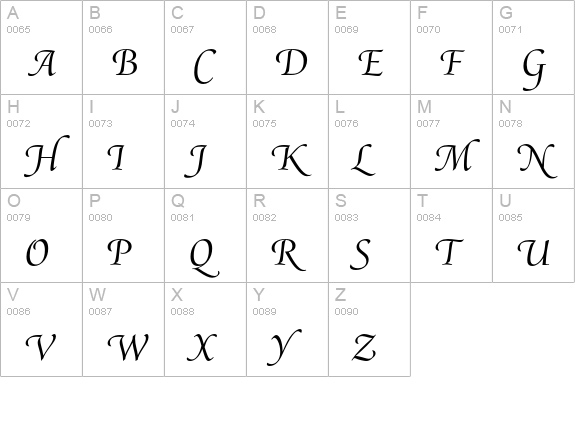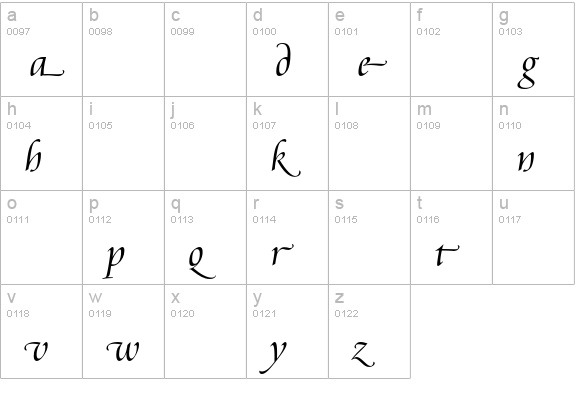
Cataneo Light Swash Font Details
Cataneo Light Swash is a refined, elegant variant in the Cataneo typeface family \xE2\x80\x94 well suited to elegant body text, refined sub-headings, and luxury branding.
Cataneo Light Swash font is a graceful and elegant typeface that exudes sophistication and charm. Its delicate swashes and intricate details add a touch of whimsy and flair to any design. This font is perfect for creating invitations, greeting cards, branding materials, and more. The Cataneo Light Swash font is not only visually appealing but also versatile, making it suitable for a wide range of projects. Whether you are designing a wedding invitation or a logo for your business, this font will elevate your work to the next level. And the best part? Cataneo Light Swash font is completely free to download at FontsMarket.com. So go ahead and add this beautiful typeface to your collection today and let your creativity shine!